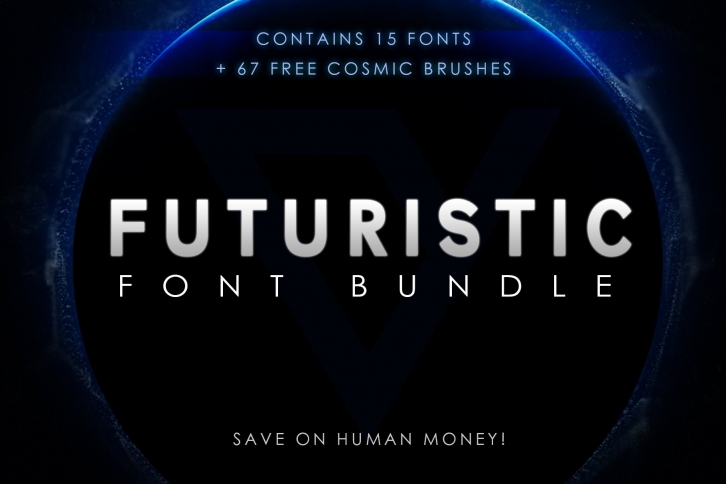
A large bundle of futuristic display fonts for sale plus bonus brushes. This unique and creative set of designs has been passionately handcrafted to give you a unique set of typefaces. Inspired by sci-fi, these fonts are perfect for your next project, especially if you want to give a futuristic feel. This bundle will be constantly updated with new fonts.